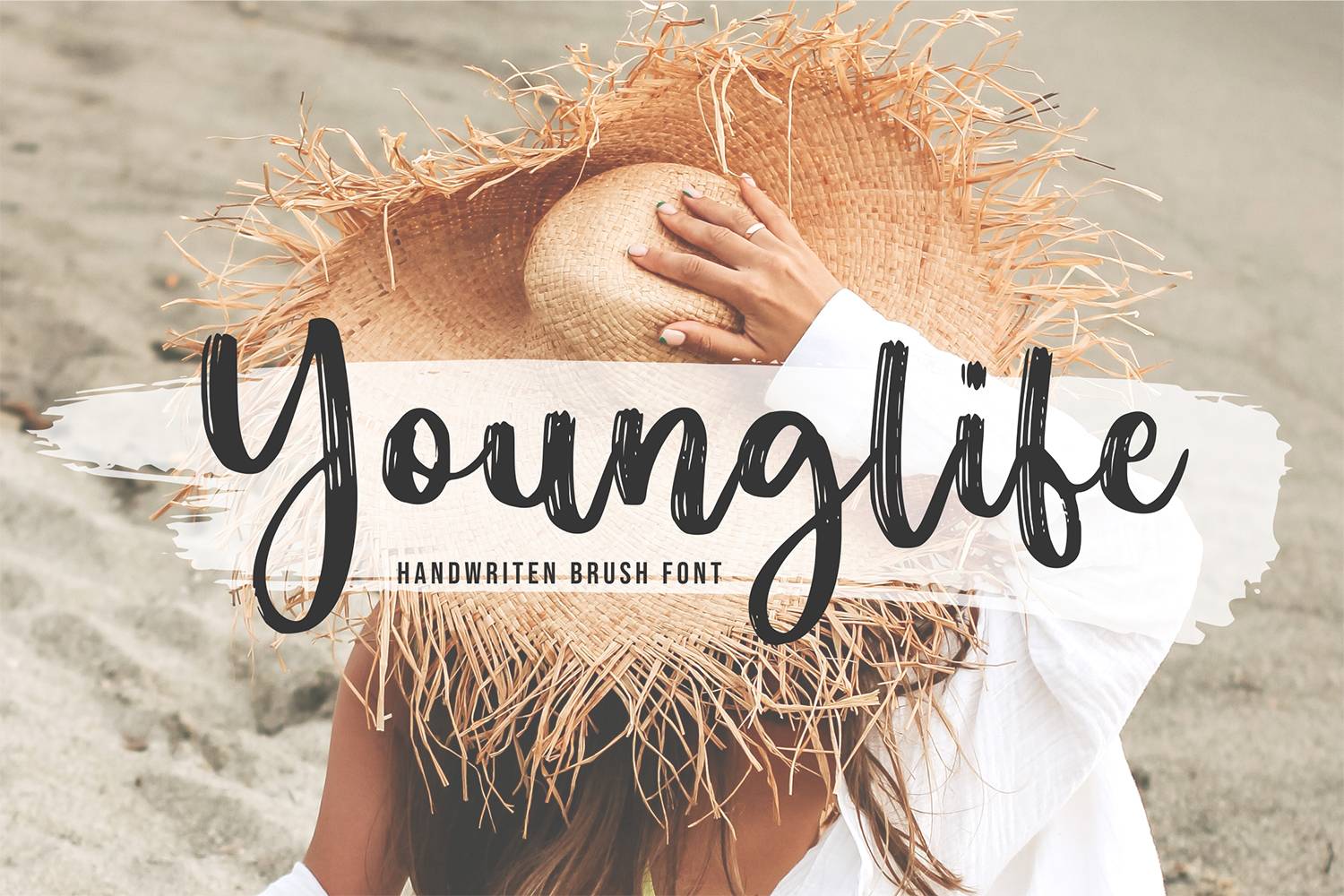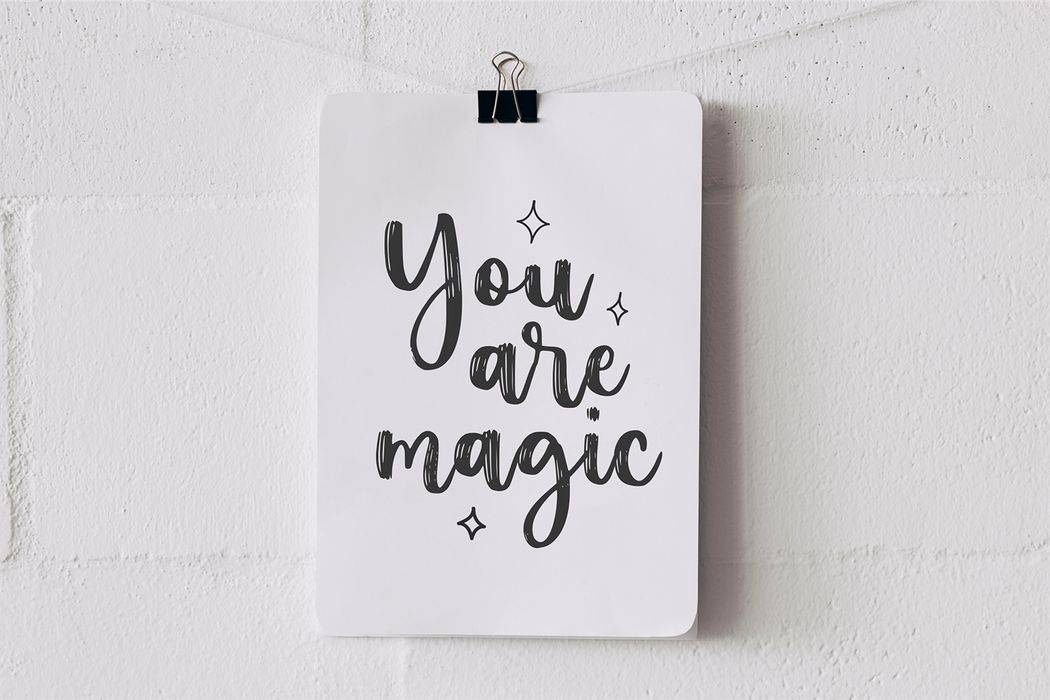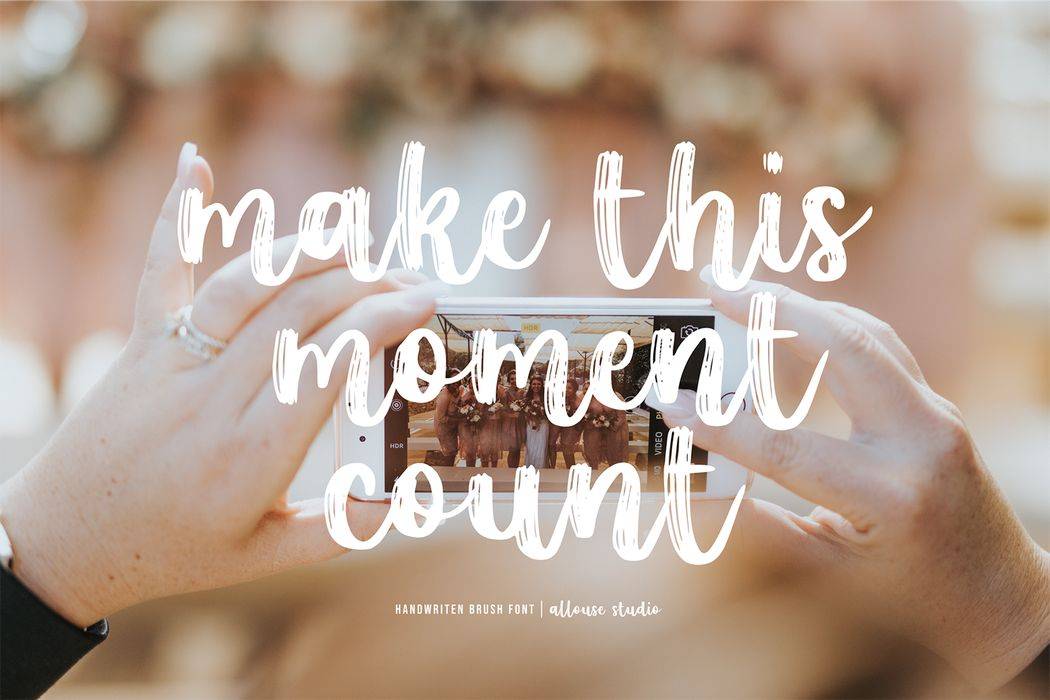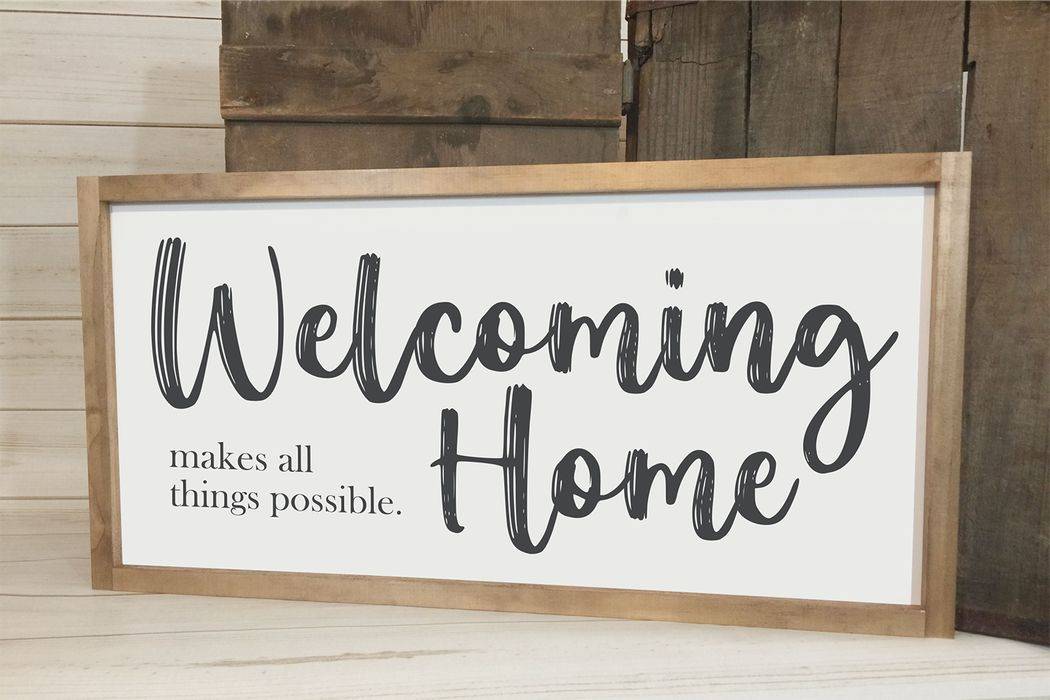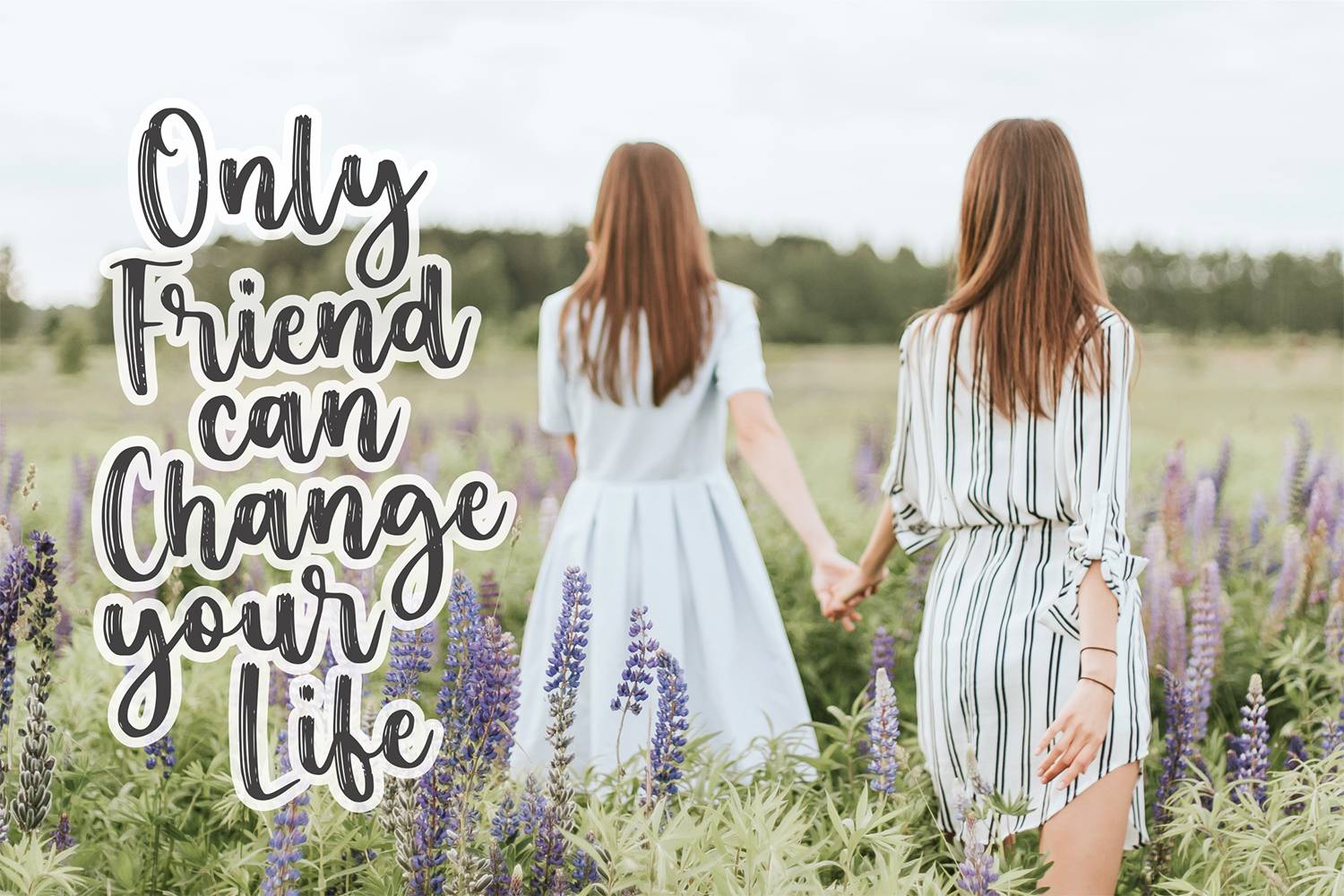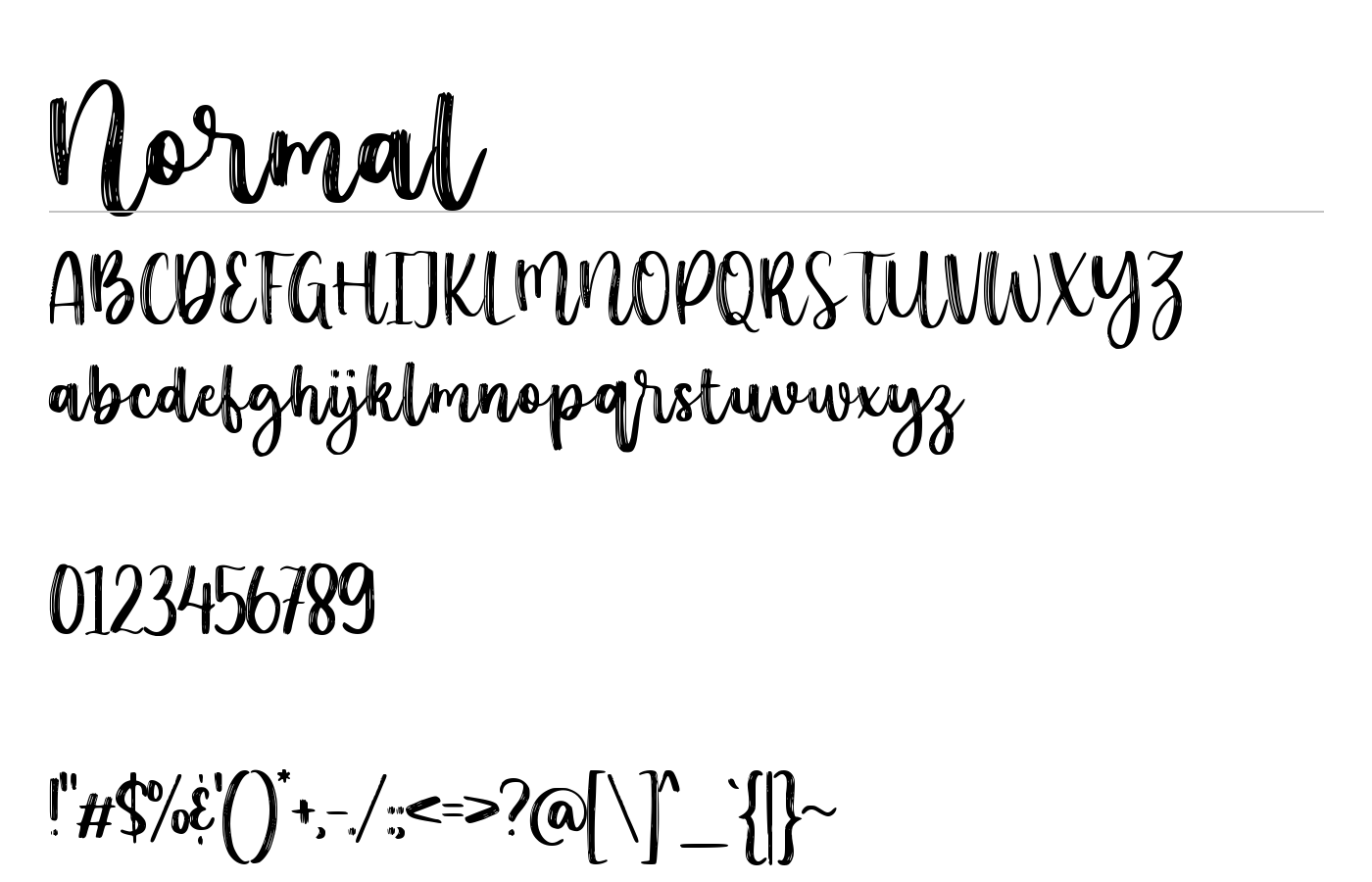
Younglife is a lively, handwritten script font with a playful and organic feel. Its tall, slightly condensed letterforms with varied stroke thickness give it an energetic yet casual personality, making it perfect for creative projects, invitations, lifestyle branding, and youthful designs that seek a personal touch. This font’s friendly style works best in headlines and logos where a warm, approachable character is desired.
Younglife Font
About Younglife Font